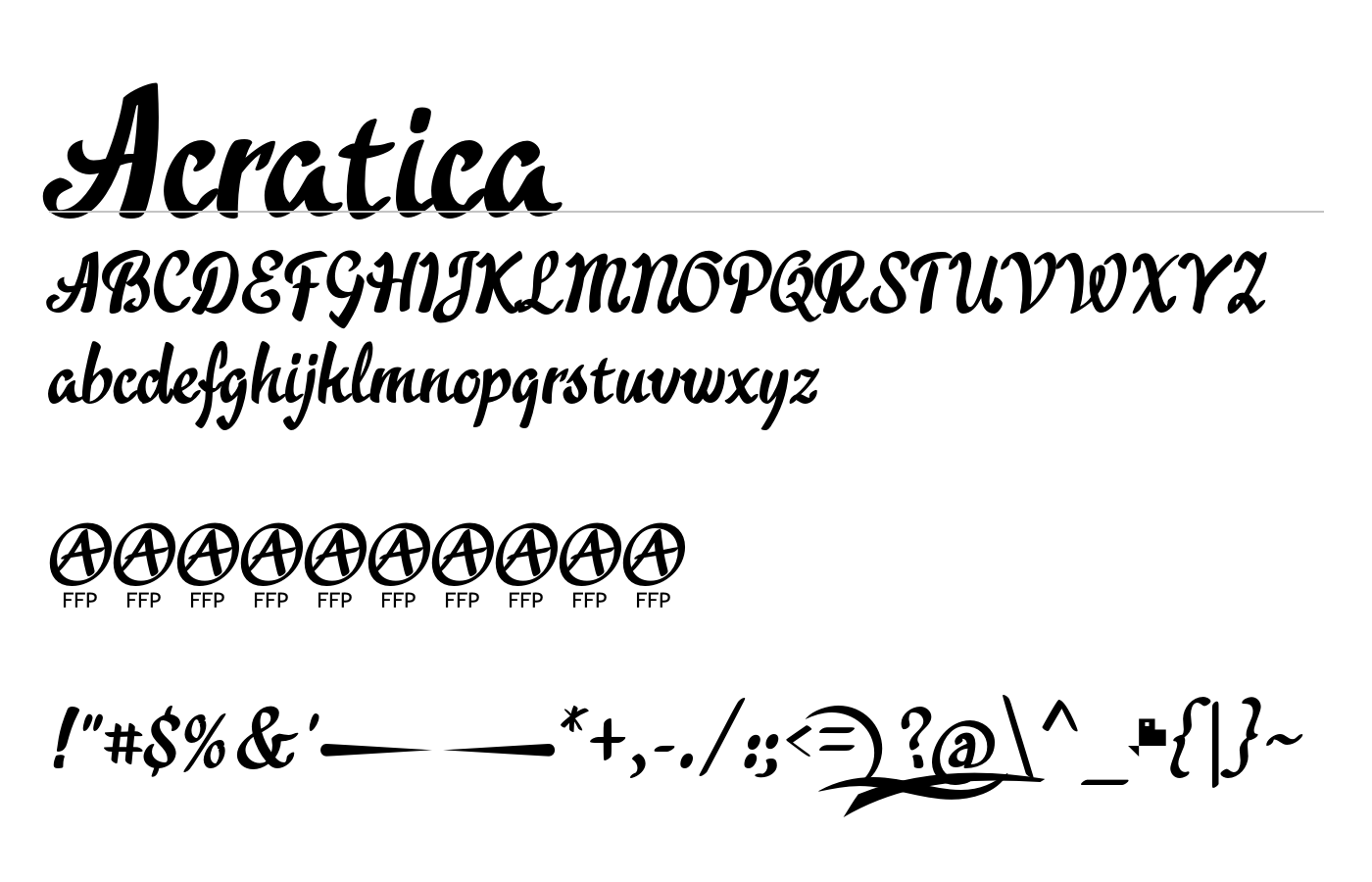
Acratica is a bold, script-style font with fluid, brush-like strokes that give it an energetic and expressive personality. Its moderately condensed letterforms and high contrast between thick and thin lines make it ideal for eye-catching headlines, logos, and branding that seek a playful yet confident feel. This font works best in creative and informal contexts where a dynamic, hand-crafted look is desired.
| Font family | Acratica Font |
| Designer | deFharo |